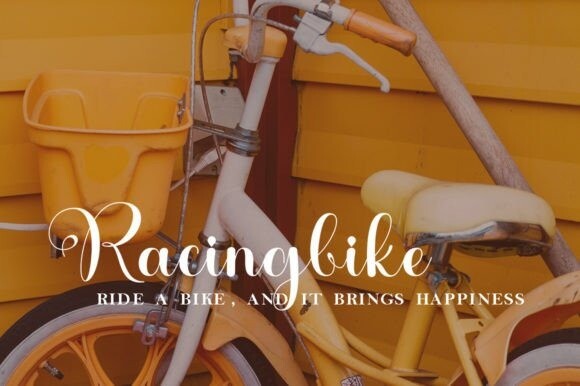
Gravelia Helani Font
Gravelia Helani is a sophisticated and timeless font, with a personal touch. Featuring fluid, graceful curves and a classic calligraphy style, it’s perfect for adding a touch of elegance to any project. Ideal for wedding invitations, stationery, and branding. This font is PUA encoded which means you can access all of the glyphs and swashes with ease!